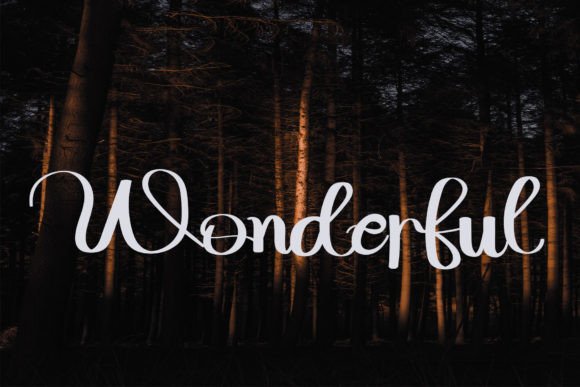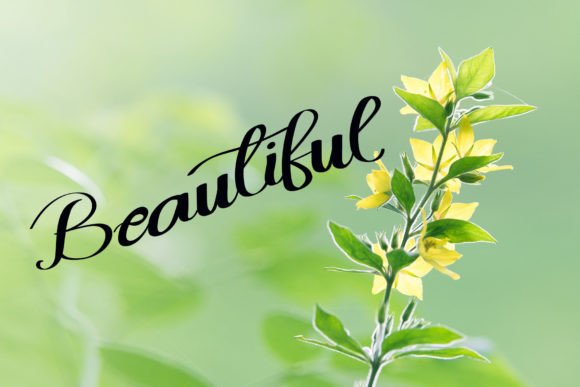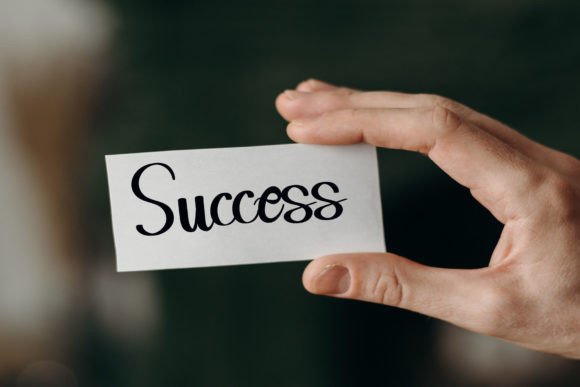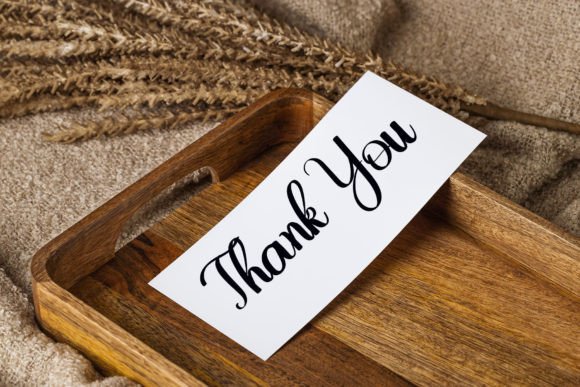
About Rainbow Font
“Rainbow” is a trendy handwritten font that exudes a contemporary atmosphere while maintaining impeccable form, drawing inspiration from timeless classic calligraphy. This font is designed to infuse elegance and class into any of your design projects, making it a versatile choice for a wide range of creative endeavors.
The contemporary and trendy nature of “Rainbow” is evident in its design, which reflects current design trends while still embracing the timeless beauty of classic calligraphy. The fusion of these elements results in a font that resonates with a modern audience, making it a great choice for various design applications.
The impeccable form of “Rainbow” adds a touch of sophistication to your text. Each letter is crafted with precision, creating a font that stands out for its clarity and elegance. Whether used in headlines, titles, or body text, “Rainbow” maintains its polished appearance, enhancing the overall aesthetic of your project.
The inspiration from timeless classic calligraphy gives “Rainbow” a sense of tradition and craftsmanship. This blend of classic and contemporary elements makes the font versatile, suitable for both formal and more casual design contexts. It adapts seamlessly to diverse projects, from invitations and branding to posters and digital media.
Incorporating “Rainbow” into your design projects is a way to add a touch of refinement and sophistication. Its versatility allows it to bring an elevated look to various applications, contributing to a visually appealing and stylish design.
In summary, “Rainbow” is not just a font; it’s a design asset that combines contemporary trends with timeless elegance. Whether you’re working on formal invitations, brand identities, or other creative projects, “Rainbow” adds a level of class and sophistication that enhances the visual appeal of your designs.